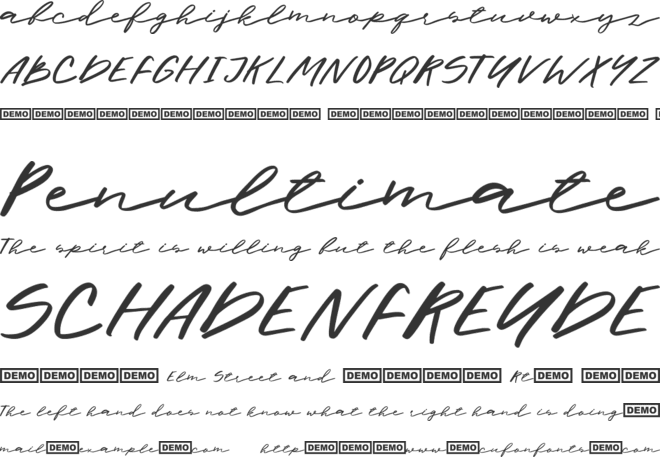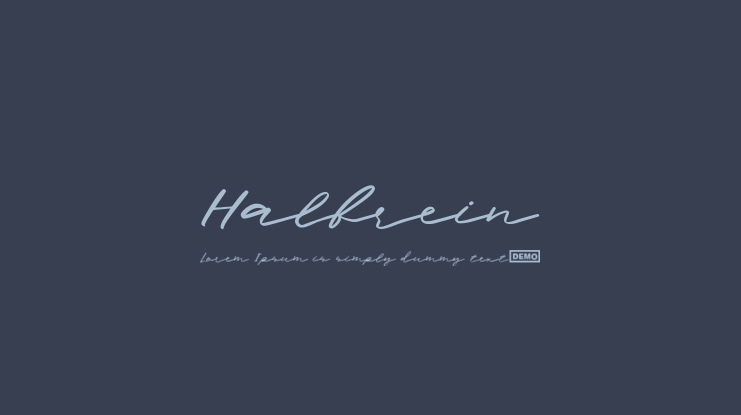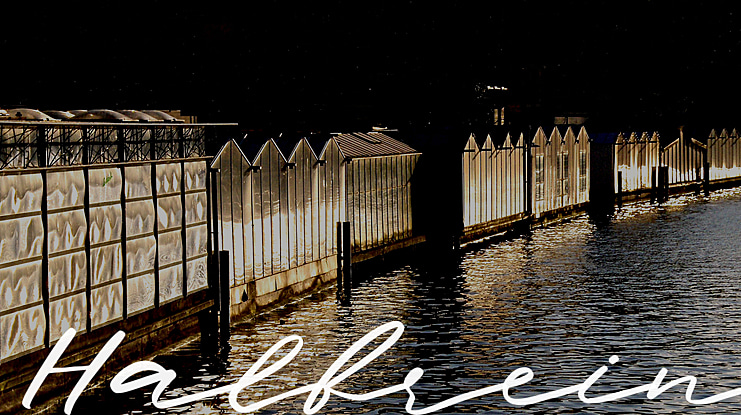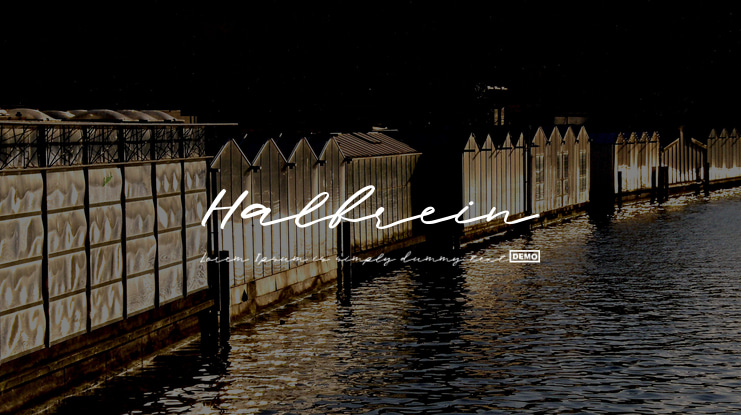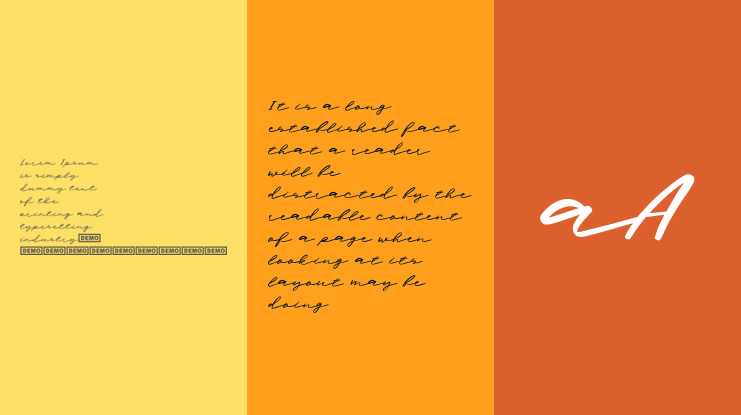
Halbrein Font
Hleb Zhyhunou
Meet my new font Halbrein – a romantic delicate script font with its poetic flow, wich simulates natural handwriting. Full version of Halbrein comes with uppercase, lowercase, standard punctuation and special letters for most of the European languages.
Halbrein font preview